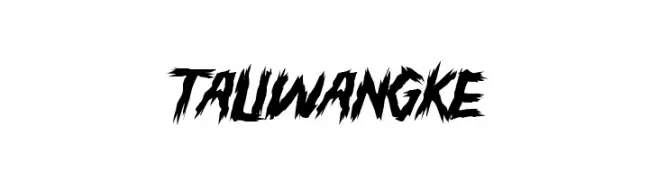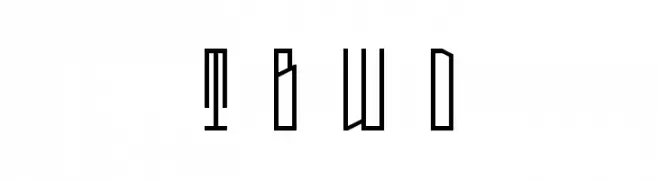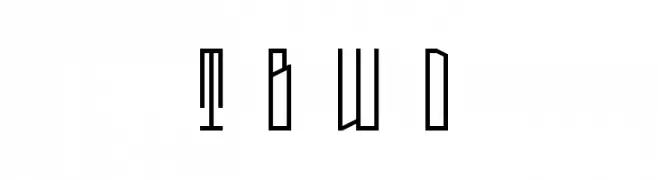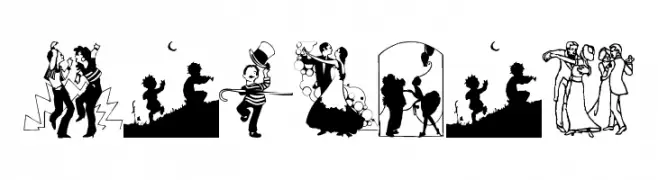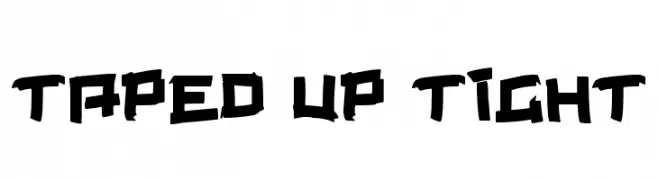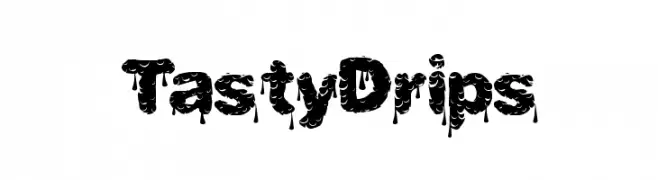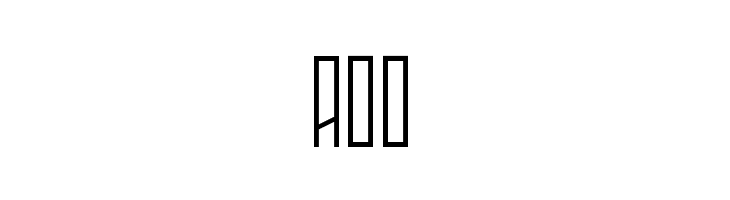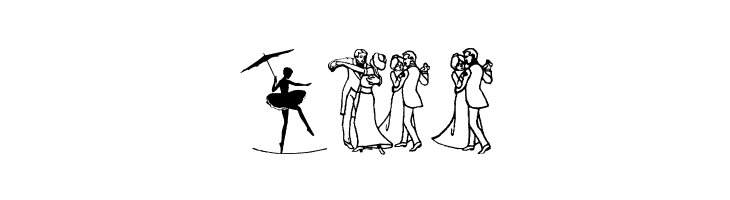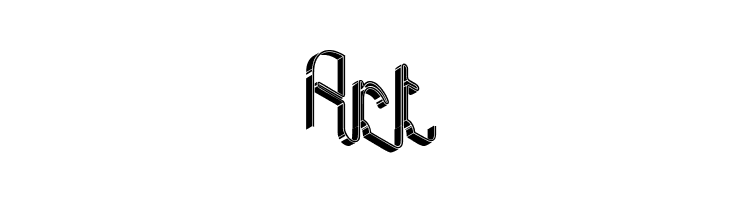
A bold, jagged font with a dynamic and aggressive style.
A tall, geometric font with narrow, angular characters and a modern aesthetic.
A geometric, modern font with tall, narrow characters and sharp angles.
A dance-themed decorative dingbat font with expressive dancer illustrations.
A bold, 3D retro-futuristic font with geometric and angular design.
A bold, edgy font with a taped-together appearance, featuring sharp, angular characters.
A bold, geometric font with a zigzag pattern and consistent thickness.
A bold, dripping font with a playful and dynamic style.
Taxi-themed dingbat font with bold, iconic symbols.